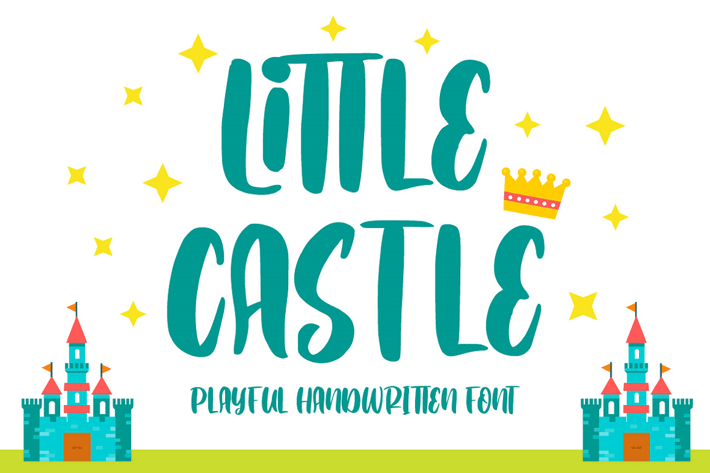
Are you looking for a font that speaks to kids and keeps adults young at heart? A playful and spirited design like this is a great way to grab everyone’s attention!
Introducing Little Castle – A Handwritten Font.
Every detail of this cute font features a cheerful design, making it easy to present your brand, project, or presentation in the best light. It’s awesome for anything kids-related – toys, clothing, packaging, banners, advertisements, and much more.
Multilingual & Ligature Support
Full sets of Punctuation and Numerals